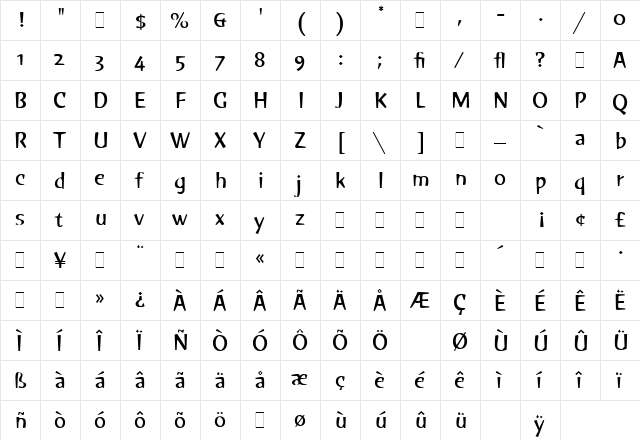
Green LET Plain
Design Context for Green LET Typeface
Green LET offers clean, dependable letterforms without strong stylistic allegiance, making it a practical choice for designers who need flexibility.